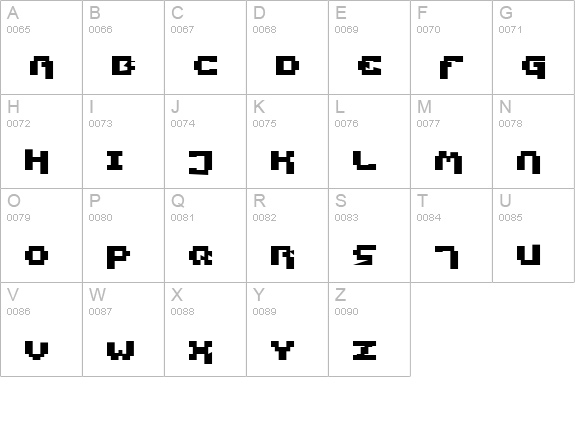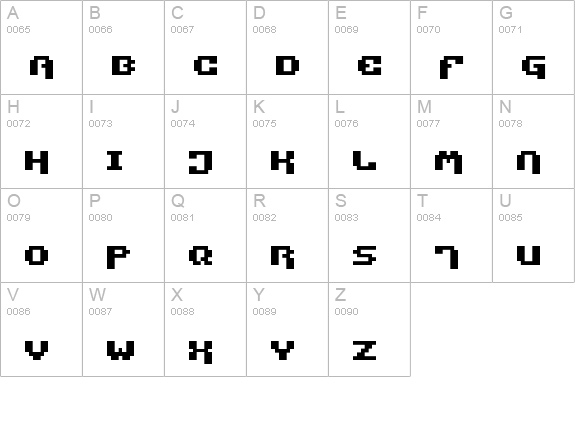
Pixel Technology + Font Details
Pixel Technology is a cutting-edge font that combines the precision of pixels with the sleekness of modern technology. With its clean lines and meticulous attention to detail, this font is perfect for digital designs, websites, and futuristic branding. Pixel Technology is not just another font - it is a statement of innovation and creativity. It captures the essence of technology in every letter, ensuring that your message is conveyed with a bold and modern edge. Whether you are designing a tech startup logo or creating a digital masterpiece, Pixel Technology will elevate your work to new heights. One of the best features of Pixel Technology is that it is freely available to download at FontsMarket.com. This means that you can access this incredible font without any cost, giving you the freedom to experiment and explore its endless possibilities. The versatility of Pixel Technology is truly remarkable. It can be used for headlines, titles, body text, and everything in between. Its sharp and precise design ensures that your text stands out and commands attention. Additionally, Pixel Technology is highly legible even at smaller sizes, making it ideal for all kinds of digital and print media. No matter what your design needs may be, Pixel Technology is the font that will take your projects to the next level. Its seamless integration of pixels and technology creates a unique aesthetic that is both modern and timeless. Download Pixel Technology for free at FontsMarket.com and unleash your creativity today.